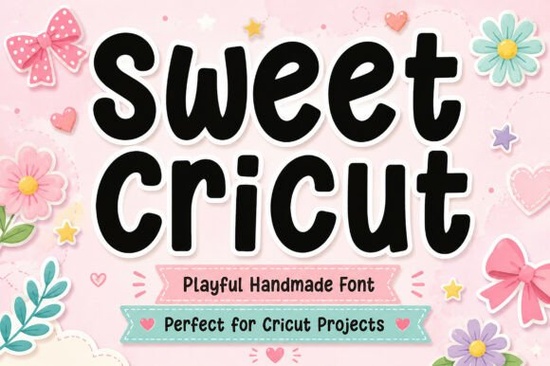
If you're looking for a friendly, hand-drawn-style font that cuts cleanly on Cricut machines and works well across craft projects from vinyl decals to kids’ party invitations Sweet Cricut Font is a thoughtful choice. It’s not overly decorative or hard to read, and its rounded, bold letterforms hold up well at small sizes and in layered SVG files. Crafters who’ve used it say it feels approachable and consistent no surprise, since it was designed specifically for real-world making, not just screen display.
What kind of projects does Sweet Cricut Font work best for?
This font shines where warmth and clarity matter: birthday banners, baby shower signs, classroom labels, custom stickers, and print-on-demand mugs or tote bags. Because the outlines are smooth and intentionally simplified, it cuts reliably on Cricut Explore and Maker machines even with fine-point blades and thinner materials like vinyl or cardstock. It also scales nicely for social media graphics without pixelation, thanks to its vector-based design.
Unlike some handwritten fonts with excessive swashes or inconsistent spacing, Sweet Cricut keeps things practical. Letters sit evenly on the baseline, kerning is balanced, and lowercase “a,” “e,” and “g” are clear and legible not overly stylized. That makes it easier to pair with simpler sans-serif fonts (like Worth It Font) for contrast in layered designs.
How does it compare to other playful fonts on Creative Fabrica?
If you already use Kiddie Doodle Font, you’ll notice Sweet Cricut has a slightly more structured rhythm less sketchy, more intentional. It’s bolder than Welcome Font, which leans minimalist, and friendlier than Real Varsity Jersey Bundle, which brings sporty energy rather than sweet charm. All four have their place, but Sweet Cricut fills a specific gap: cheerful without being childish, handmade without being messy.
For example, if you’re designing a set of reusable lunchbox labels for preschoolers, Sweet Cricut gives enough personality to feel special but won’t confuse young readers. Or if you’re building a small shop selling printable greeting cards, this font helps your text stand out against busy backgrounds while staying easy to cut or print.
Does it include extra characters or language support?
Yes it includes full uppercase and lowercase letters, numerals, standard punctuation, and common accented characters (like á, é, í, ó, ú, ñ). That means it supports basic Spanish, French, and Portuguese phrases without falling back to system defaults. It doesn’t include multilingual glyphs like Cyrillic or extended diacritics, so if you regularly design for broader European or global markets, you may want to double-check coverage before committing to large batches.
Who’s using Sweet Cricut Font right now?
We’ve seen small business owners use it for seasonal Etsy listings especially spring and summer collections paired with floral SVG bundles or pastel color palettes. Teachers print it on name tags and behavior charts. Parents make personalized birthday banners and “First Day of Kindergarten” signs. Even SVG designers bundle it into kits for fellow creators, noting how well it pairs with simple line-art illustrations.
One thing users consistently mention: it’s beginner-friendly. If you’re new to working with fonts in Cricut Design Space or Silhouette Studio, Sweet Cricut behaves predictably no unexpected spacing shifts, no missing glyphs when converting to outlines, and no need to manually adjust nodes before cutting.
A quick checklist before you download
- ✅ You need a cheerful, rounded font that cuts cleanly on Cricut and Silhouette machines
- ✅ Your projects lean toward kids’ crafts, party decor, or small-batch POD items
- ✅ You prefer fonts with consistent spacing and no distracting flourishes
- ✅ You want full basic character support including common accents and simple file formats (OTF/TTF/SVG)
- ❌ You need multiple weights (light, bold, condensed) or extensive multilingual coverage
If those first four match your needs, Sweet Cricut Font is worth trying alongside your current go-to fonts. Start with one project maybe a set of matching stickers or a simple t-shirt design and see how it fits your workflow. You can always layer it with a clean sans-serif for headings or add subtle shadow effects for depth. The goal isn’t perfection it’s finding tools that make crafting feel smoother, not slower.